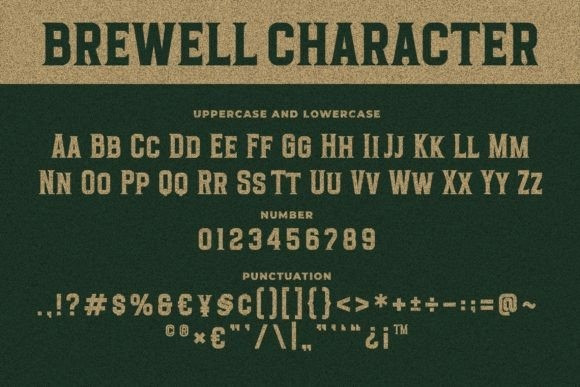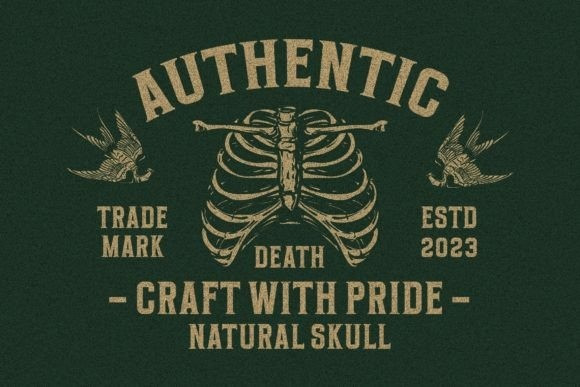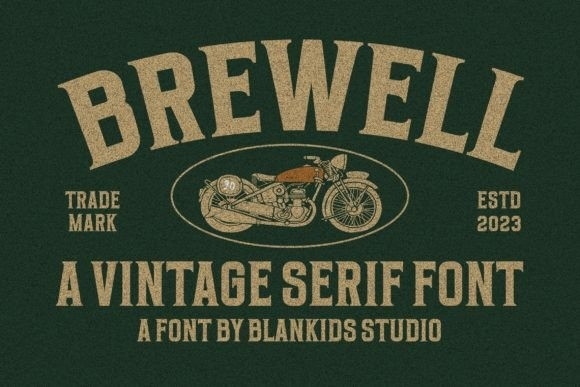
Brewell Font
Brewell Font is a vintage serif font perfect for book covers, posters, packaging, merchandise, logotypes, and much more. Do you want to create something that stands out and inspires creativity, imagination, and endless fun? Look no more, this font is your best choice.